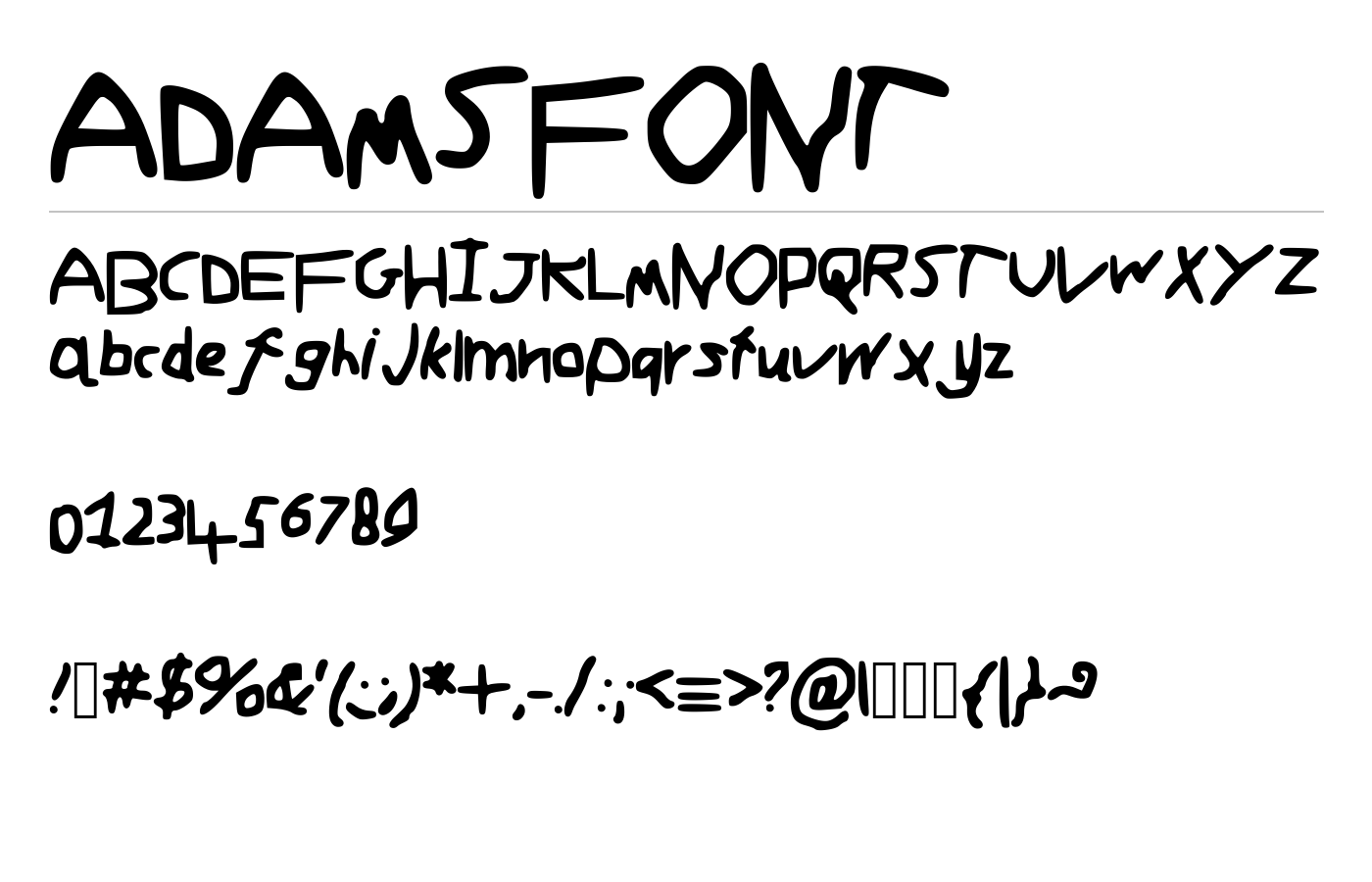
ADAMSFONT is a casual, hand-drawn sans serif font with a playful, informal vibe. Its uneven strokes and quirky letterforms give it a friendly, approachable feel, making it perfect for creative projects, children's content, or designs that want to convey personality and warmth. This font works well in headlines and branding where a unique, human touch is desired.
ADAMSFONT
About ADAMSFONT